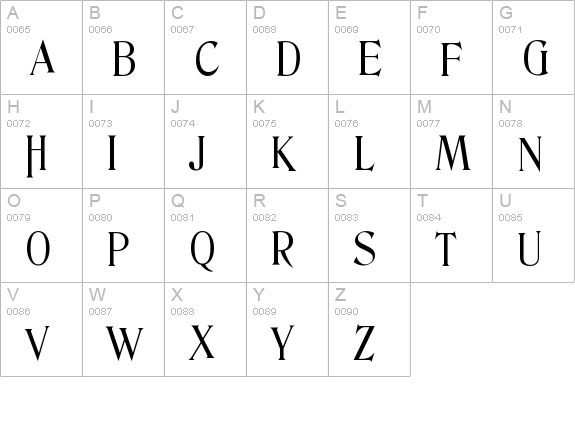
The Huntsman font is a bold and powerful typeface that embodies strength and elegance. Its sharp and angular letterforms give it a distinctive and commanding presence, making it perfect for headlines, logos, and branding projects. With its sleek and modern design, The Huntsman font captures attention and adds a touch of sophistication to any design. What sets The Huntsman font apart is not only its striking appearance, but also the fact that it is available for free. You read that right – this incredible font can be downloaded at no cost from FontsMarket.com. We believe that creativity should be accessible to all, and that's why we are thrilled to offer The Huntsman font for free, allowing designers, artists, and enthusiasts alike to bring their visions to life without breaking the bank. The Huntsman font is carefully crafted with attention to detail, ensuring every curve and line is precise and visually pleasing. Its versatility allows it to be used in a variety of projects, from packaging designs to posters, creating a strong and memorable impact. Whether you're working on a personal project or a professional endeavor, The Huntsman font will undoubtedly make a statement. With its free availability at FontsMarket.com, you can download this remarkable typeface and unleash your creativity without any restrictions. Embrace the power of The Huntsman font today and make your designs truly stand out.